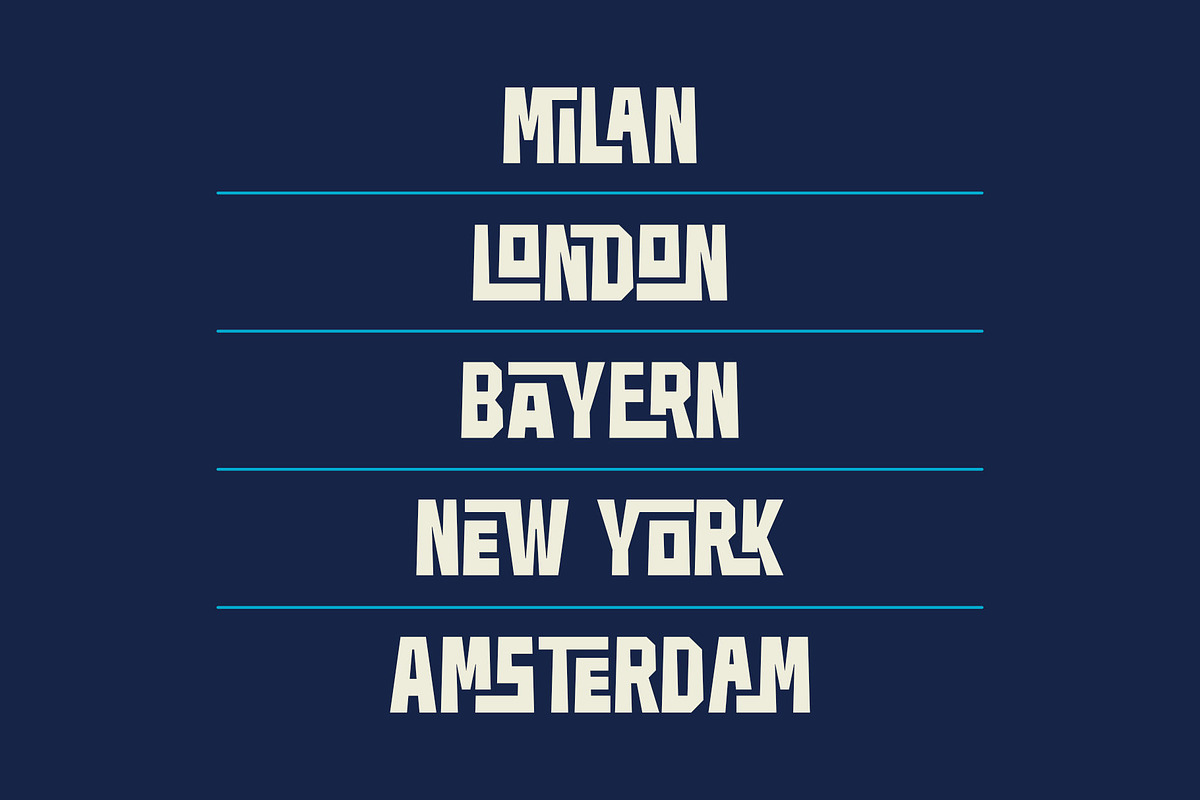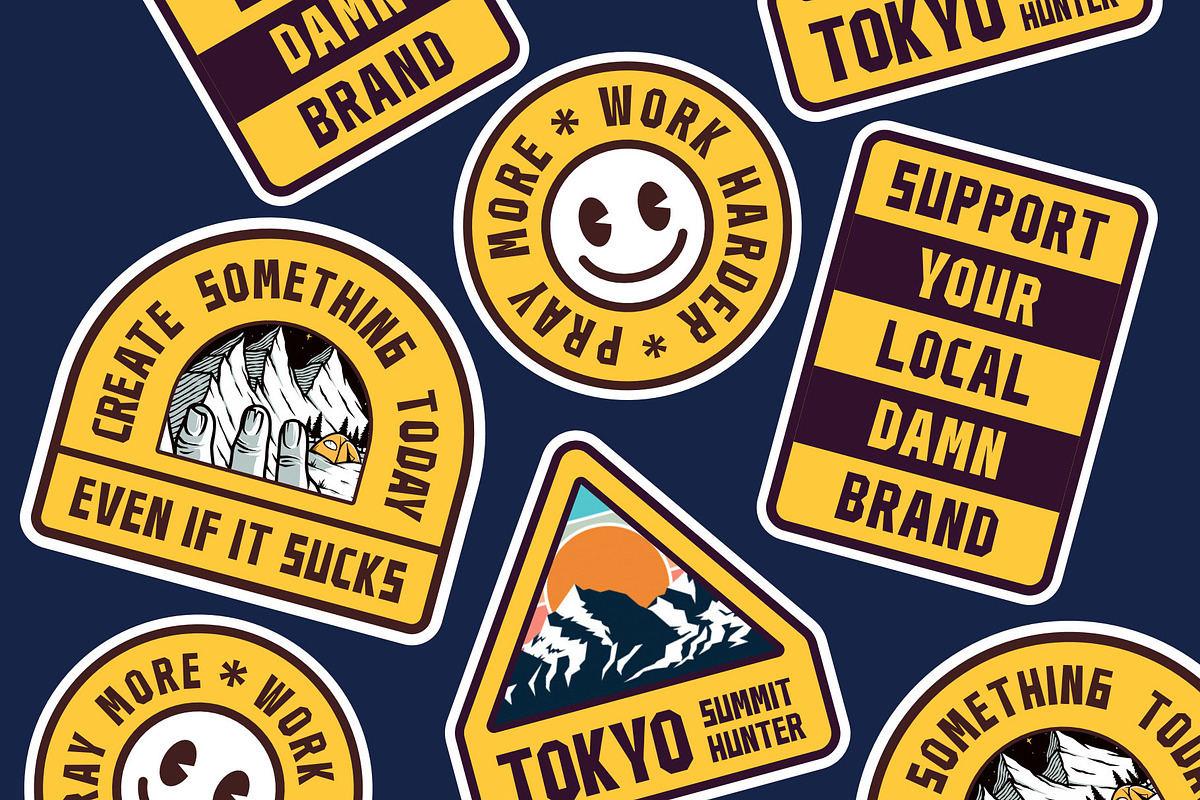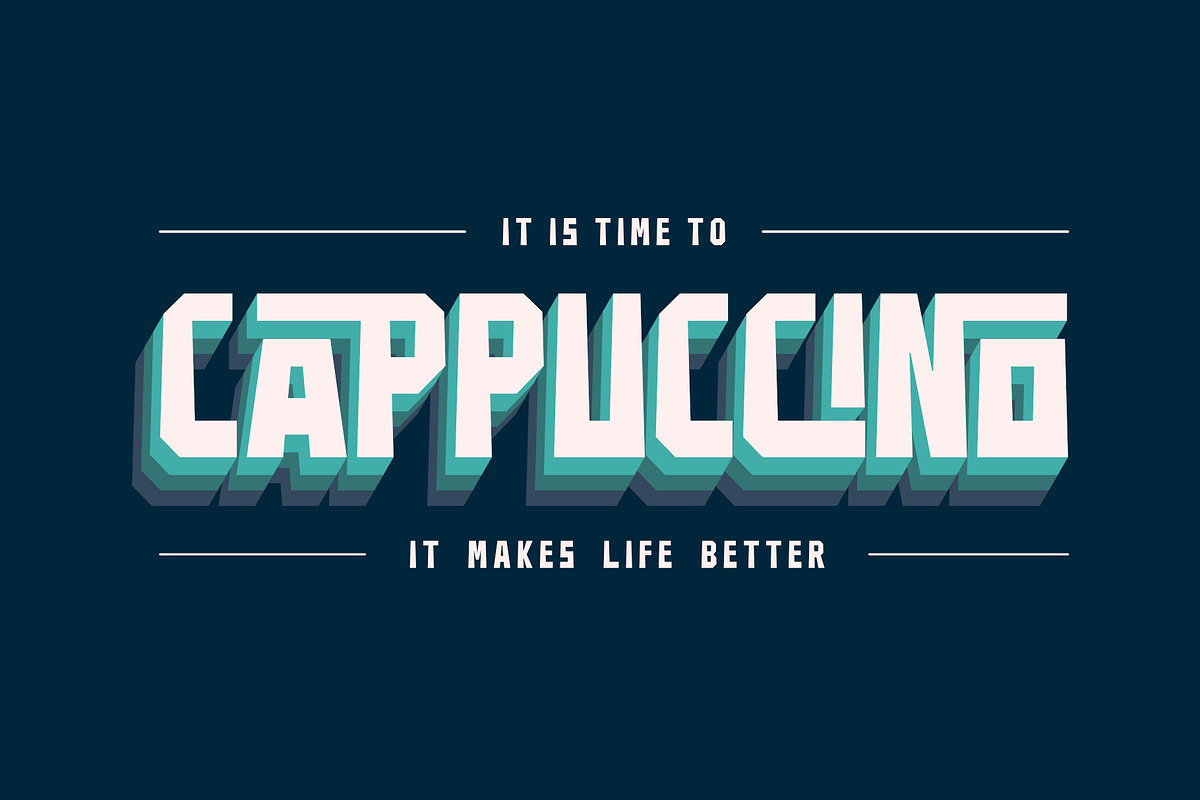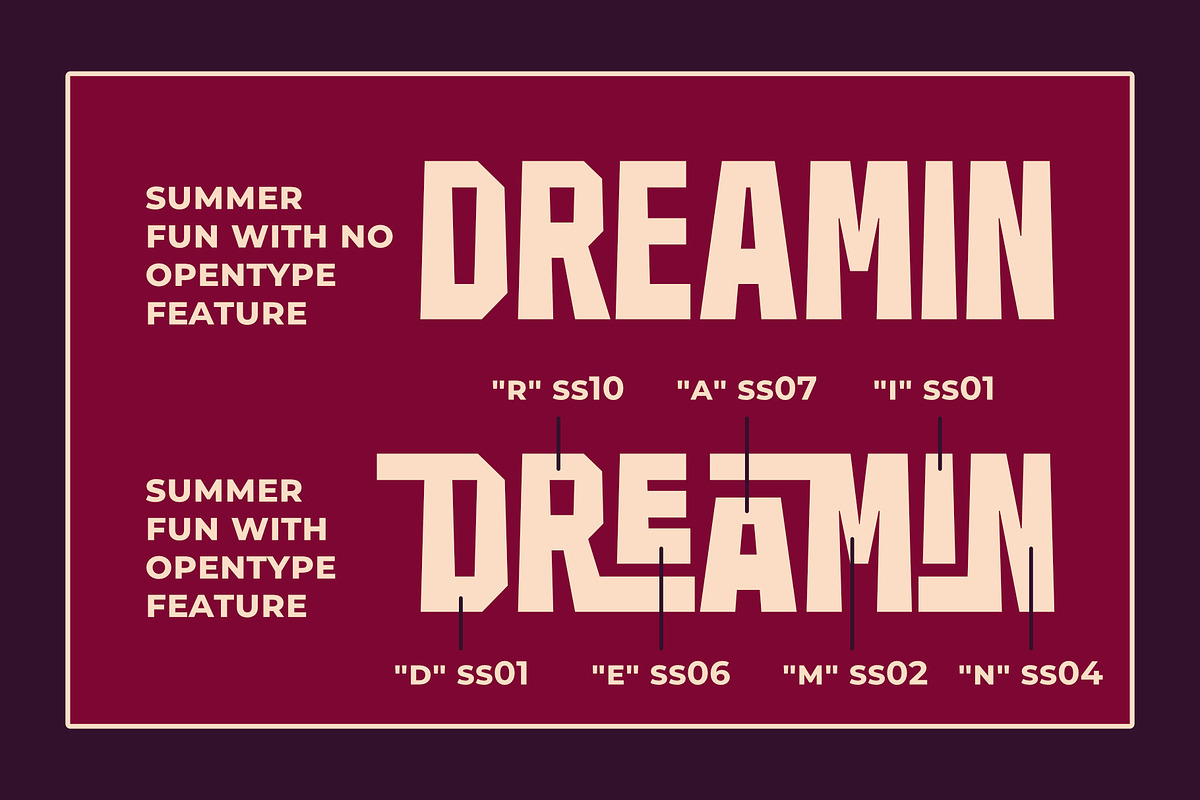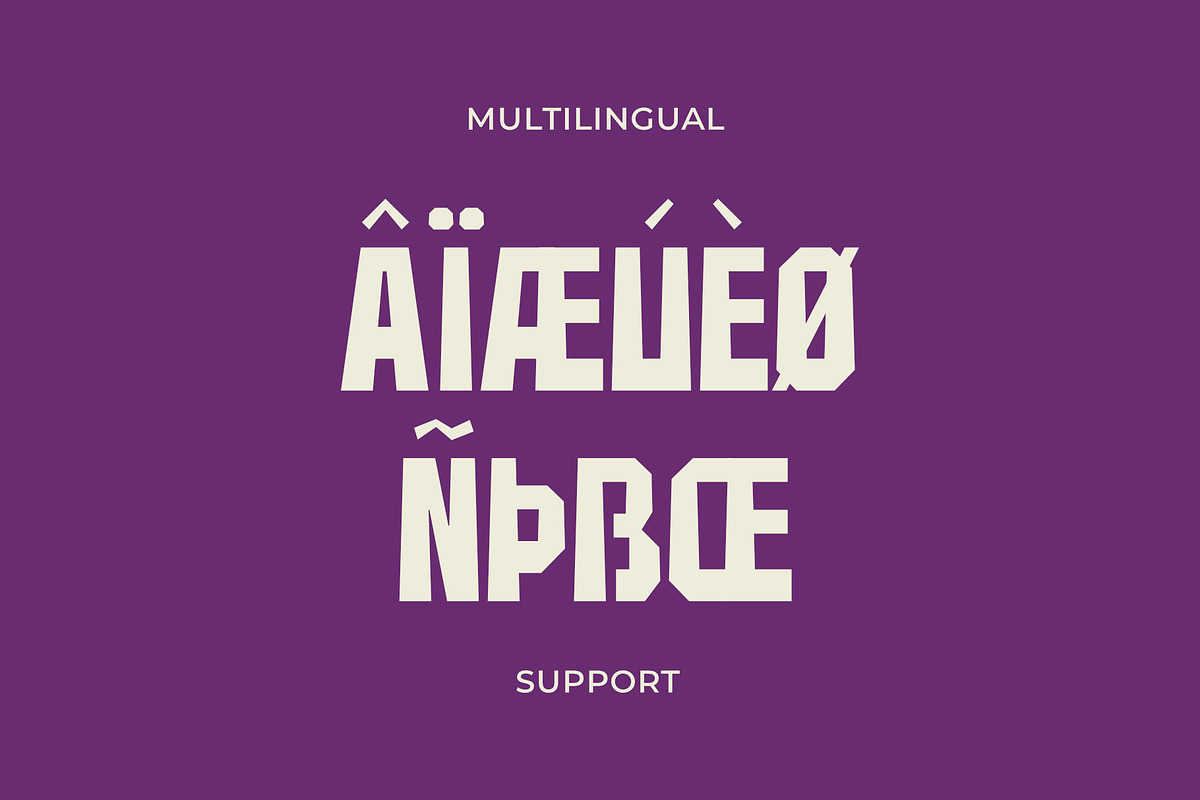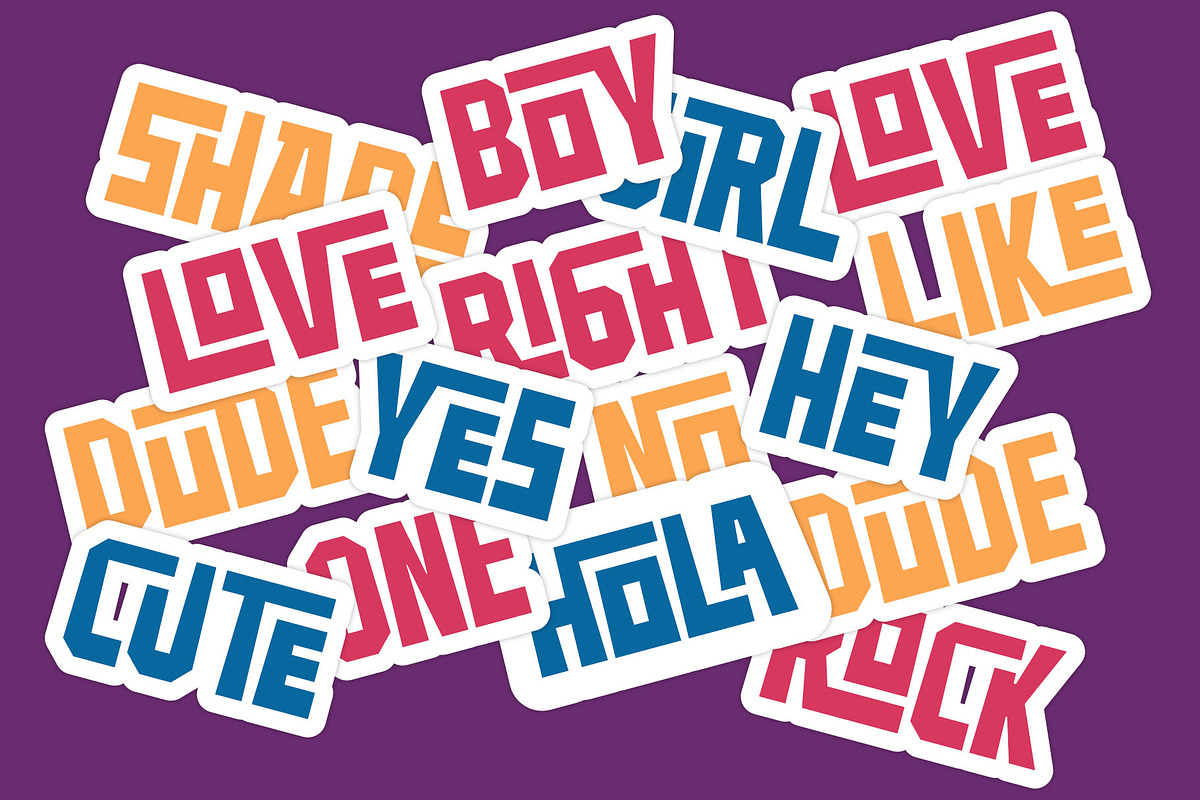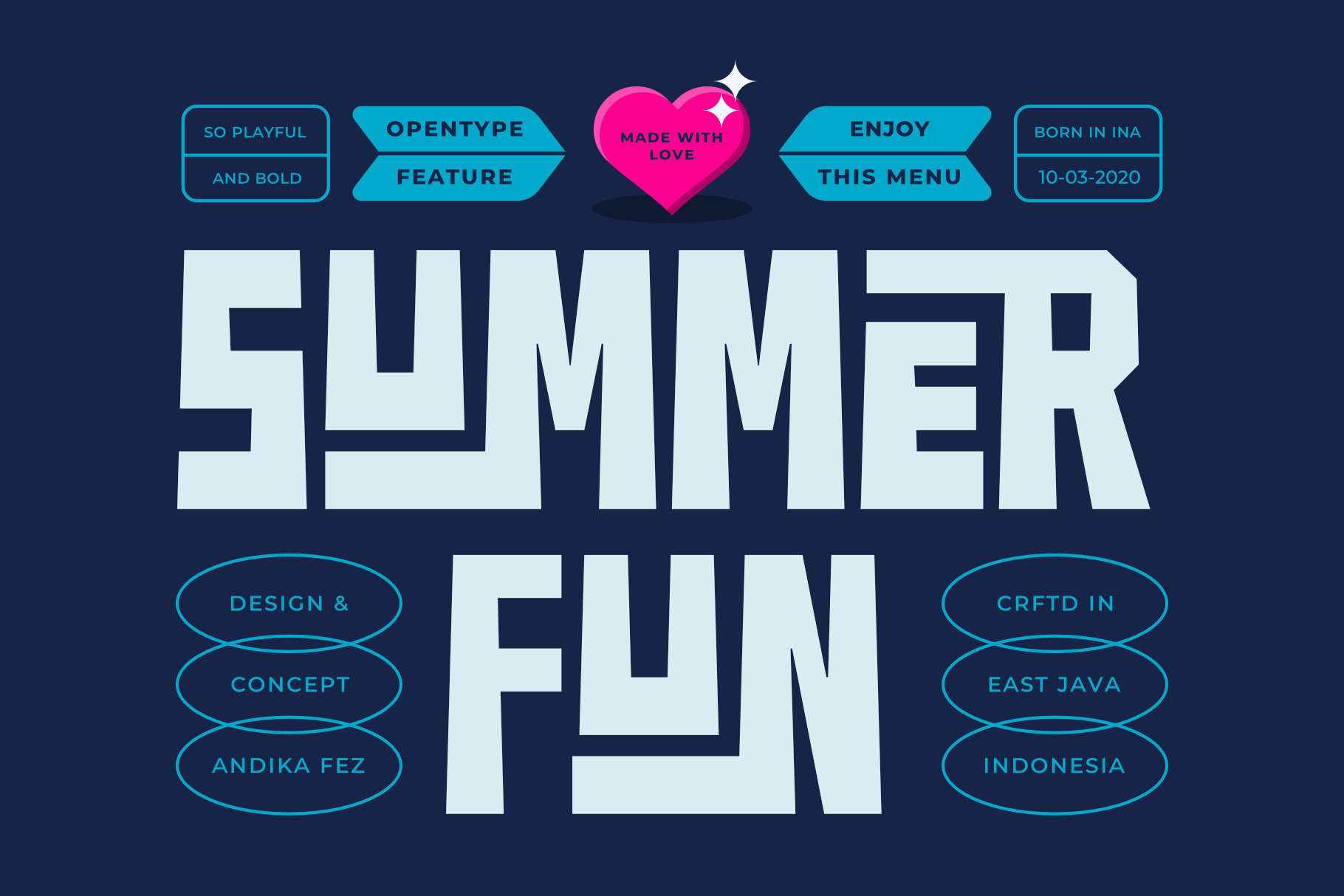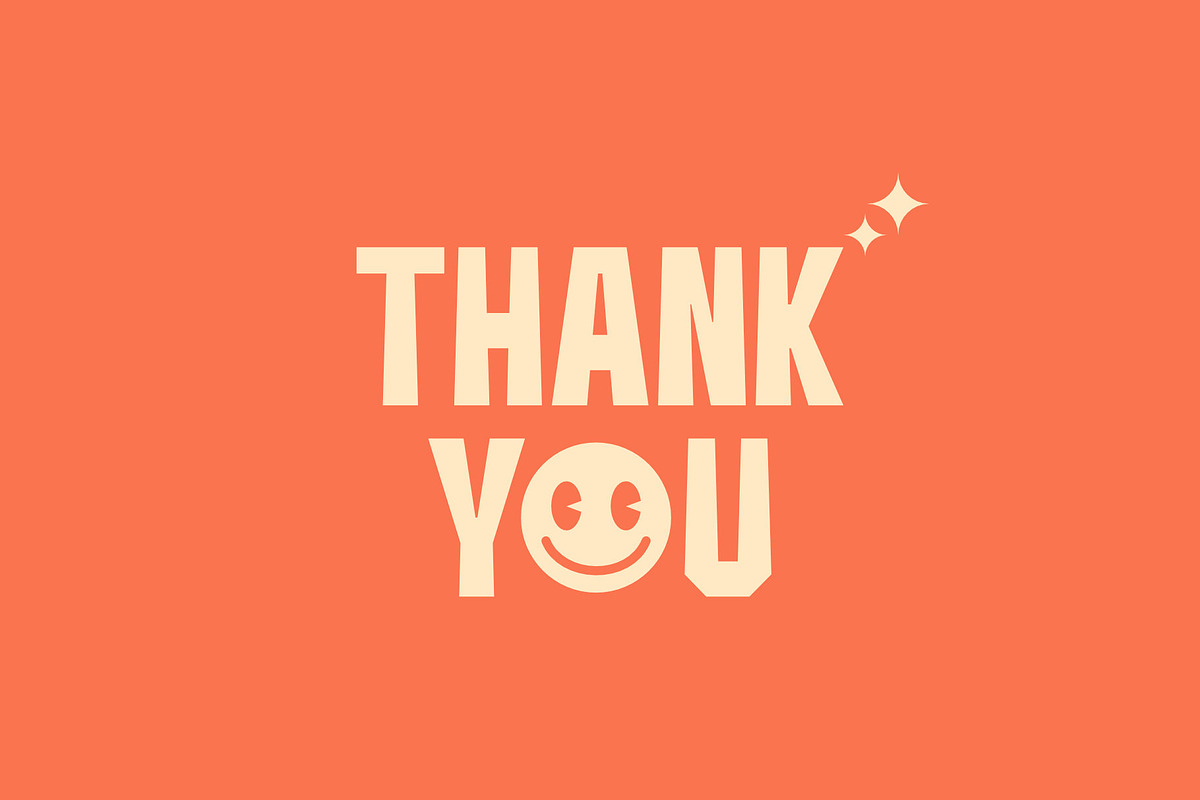
Summer Fun Vintage Retro Logo Font
Summer Fun is a bold, playful blend of modern style and retro vintage charm—perfect for standout logos, eye-catching branding, and all kinds of creative design. With hints of grunge, stamp-style texture, and smooth, elegant curves, this font brings a sun-soaked, throwback vibe to every project.
Whether you're designing for a fashion brand, creating stylish merch, or building a bold brand identity, Summer Fun delivers that perfect mix of vintage flair and modern minimalism. It’s confident, cool, and full of personality—just like your designs should be.
Great for logo design, packaging, social posts, and anything that needs a little extra character, Summer Fun is your new go-to font for laid-back style with bold impact.